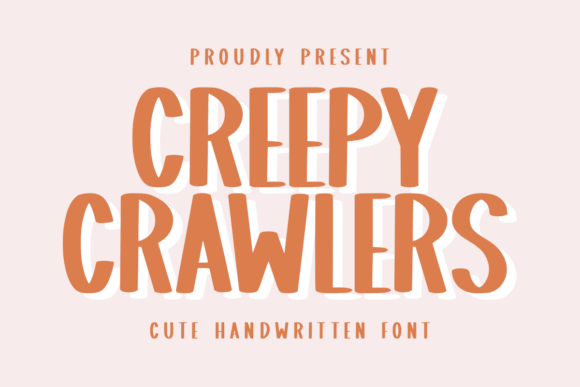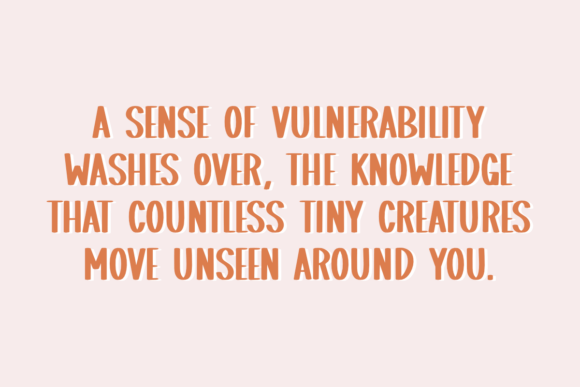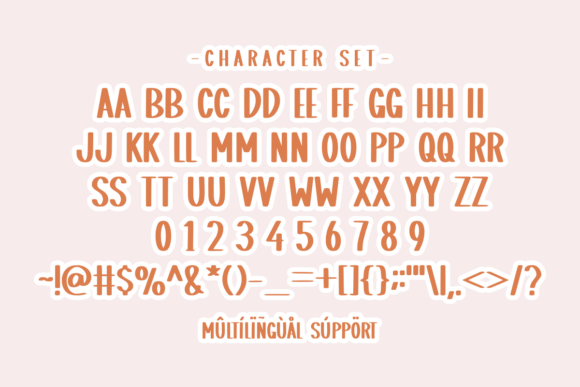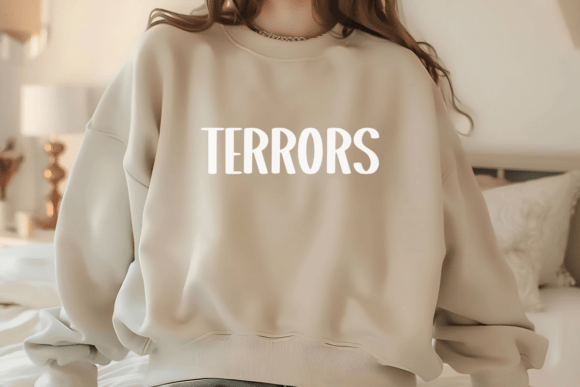
Creepy Crawlers Font
About the Creepy Crawlers Font
Add a touch of class to your work with the Creepy Crawlers Font, a truly exceptional typeface. Creepy Crawlers is a tall, narrow handwritten font with a quirky, friendly twist. Despite the spooky-sounding name, this font brings a charming vibe that’s ideal for Halloween-themed projects, kids’ branding, or playful packaging. Its clean lines and fun layout make it super versatile and easy to pair with other designs.
Creepy Crawlers excels in headlines, short bursts of text on packaging, and playful branding for children’s products or Halloween events. Its quirky charm is less effective for body copy or UI elements requiring high readability over extended lengths. The tall, narrow letterforms would hinder comfortable reading in paragraphs.
Pairing Creepy Crawlers works best with fonts that provide a counterpoint to its handwritten informality. A clean sans-serif like Open Sans would offer a modern, structured contrast, while a playful serif like Playfair Display could add a touch of vintage charm. For a more whimsical feel, consider a rounded geometric sans-serif.
The font’s overall personality is best described as friendly and quirky, possessing a bold yet approachable energy. Its charm leans toward a lighthearted, slightly mischievous aesthetic.
Creepy Crawlers Font Usage Examples
Creepy Crawlers Font Example